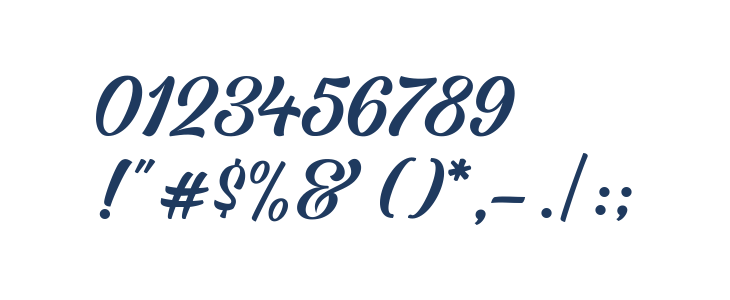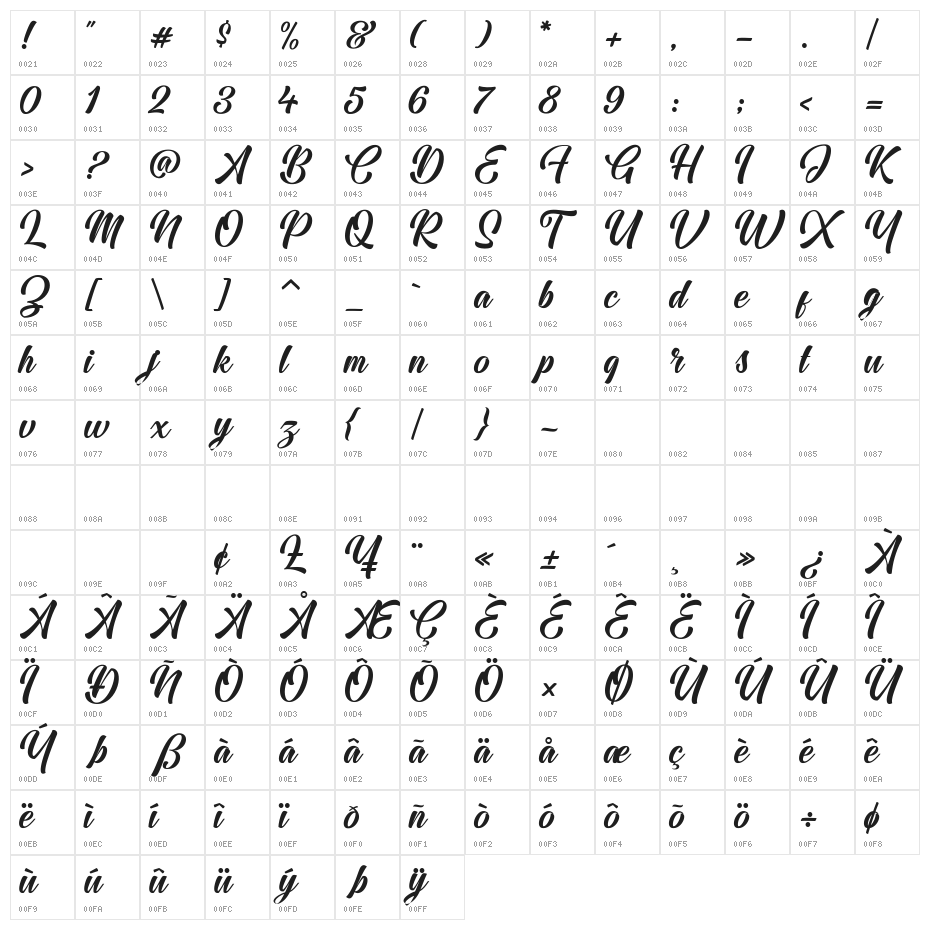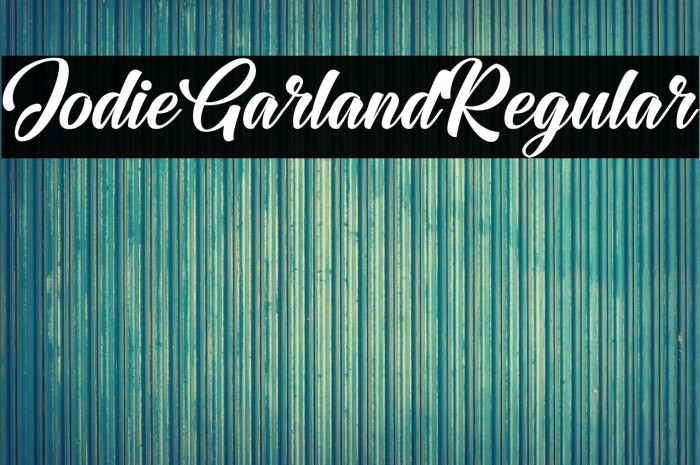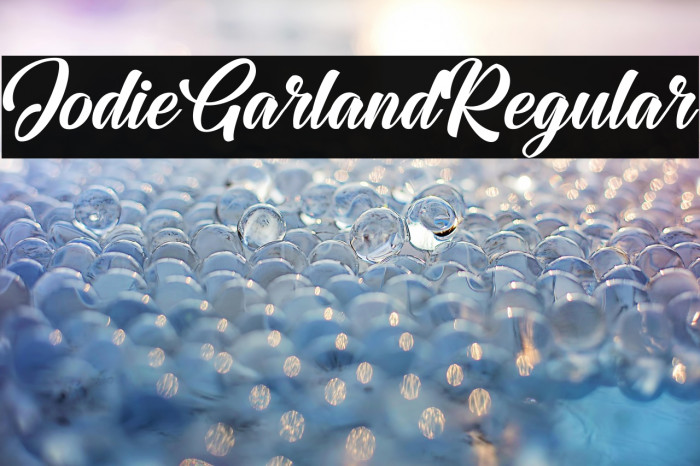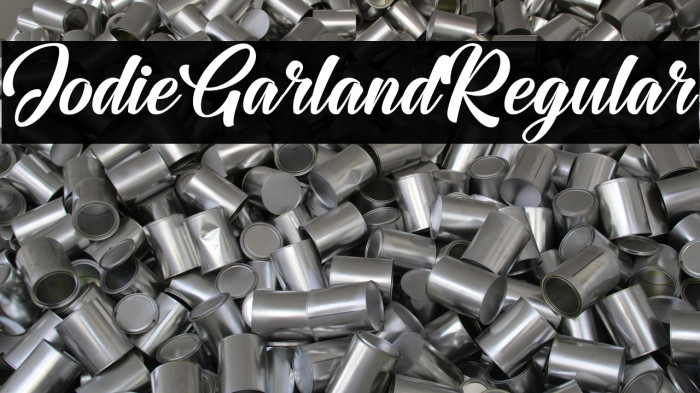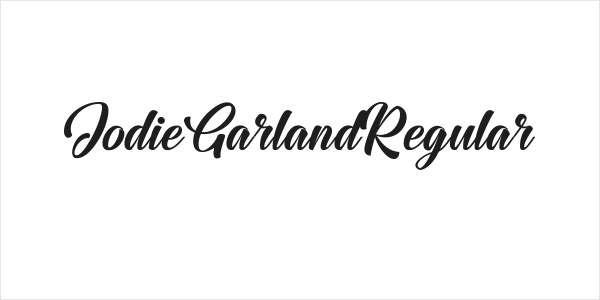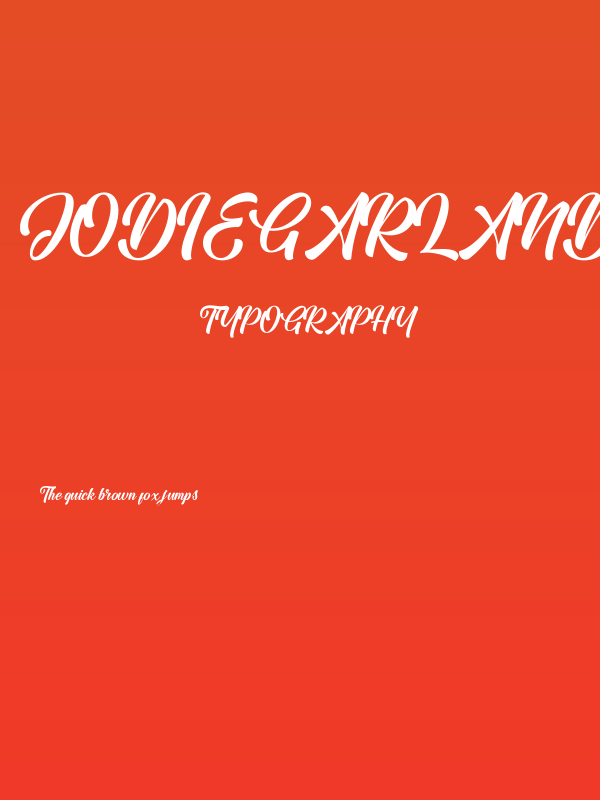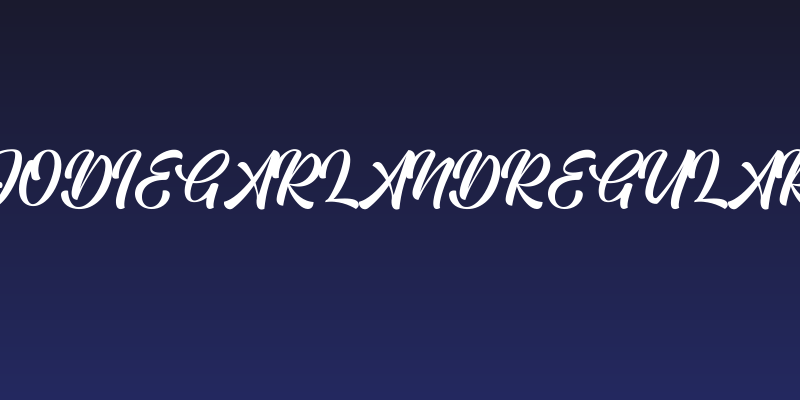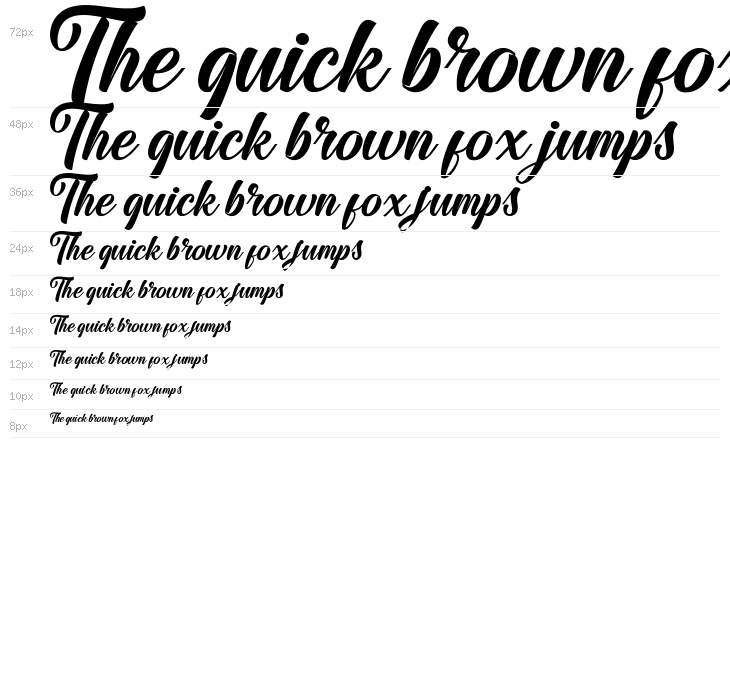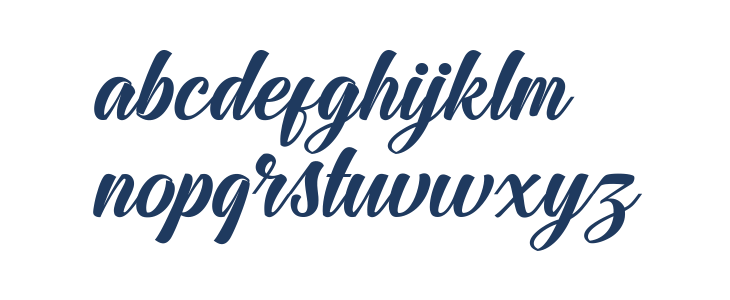
JodieGarlandRegular Font
JodieGarlandRegular Description
This font features a bold and flowing script style, characterized by its elegant and smooth curves. The letters are connected, giving it a cohesive and continuous look, reminiscent of traditional calligraphy. The uppercase letters are slightly larger and more ornate, while the lowercase letters maintain a consistent flow. Numbers and special characters are designed to match the overall style, ensuring uniformity across all elements. The font's boldness adds a sense of strength and presence, making it suitable for impactful designs.
Use CaseLogos, Headlines, Invitations
Proposed ProjectsIdeal for wedding invitations, branding, logos, and elegant packaging designs.